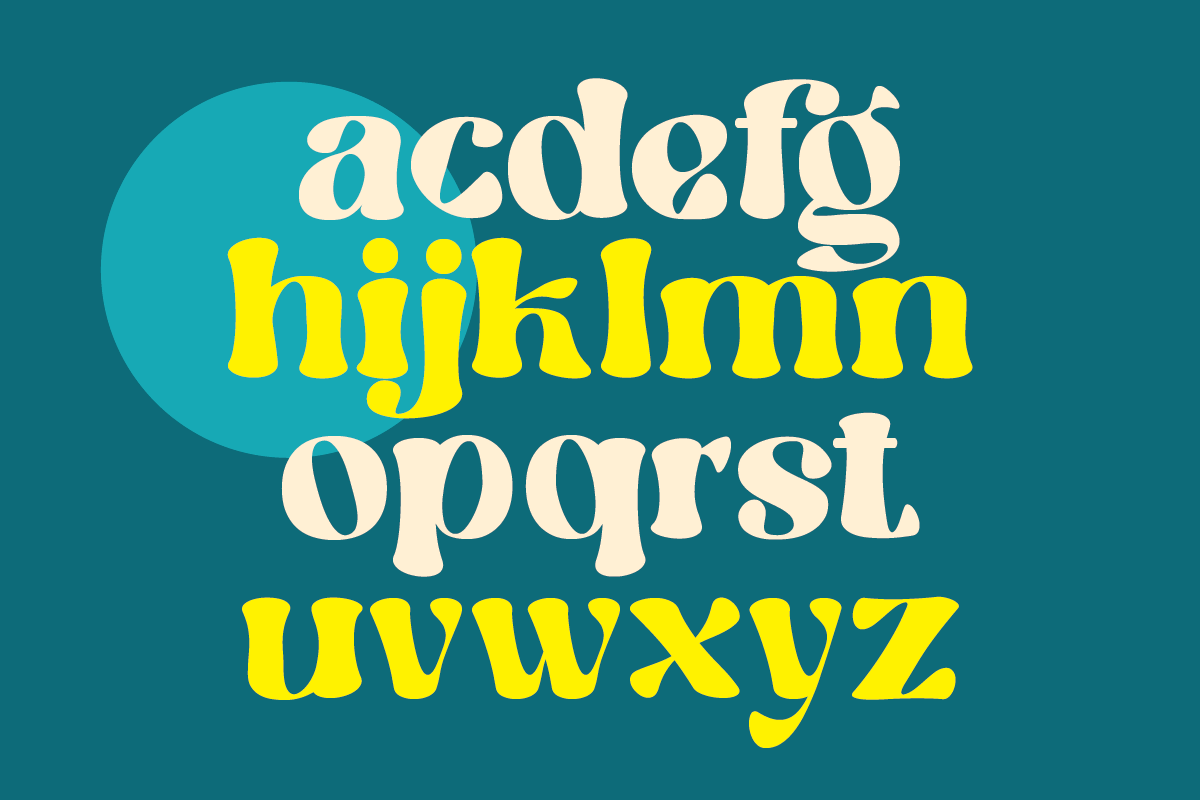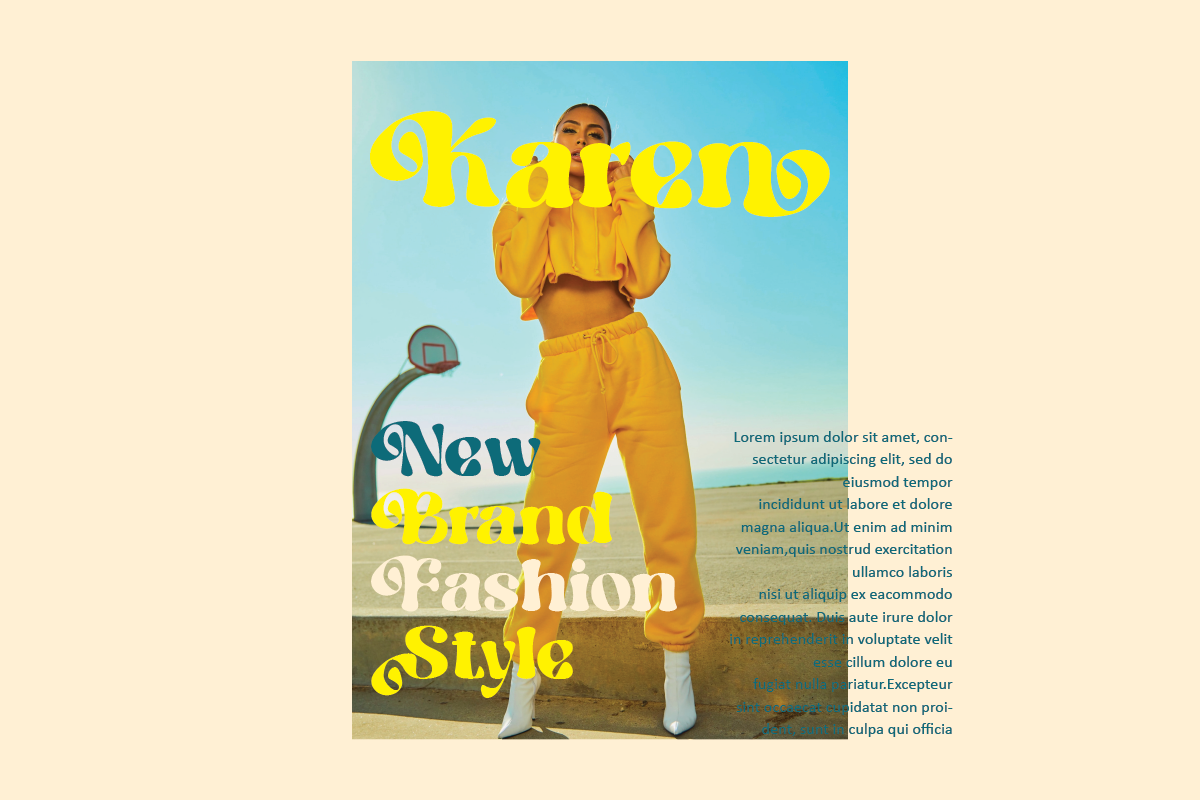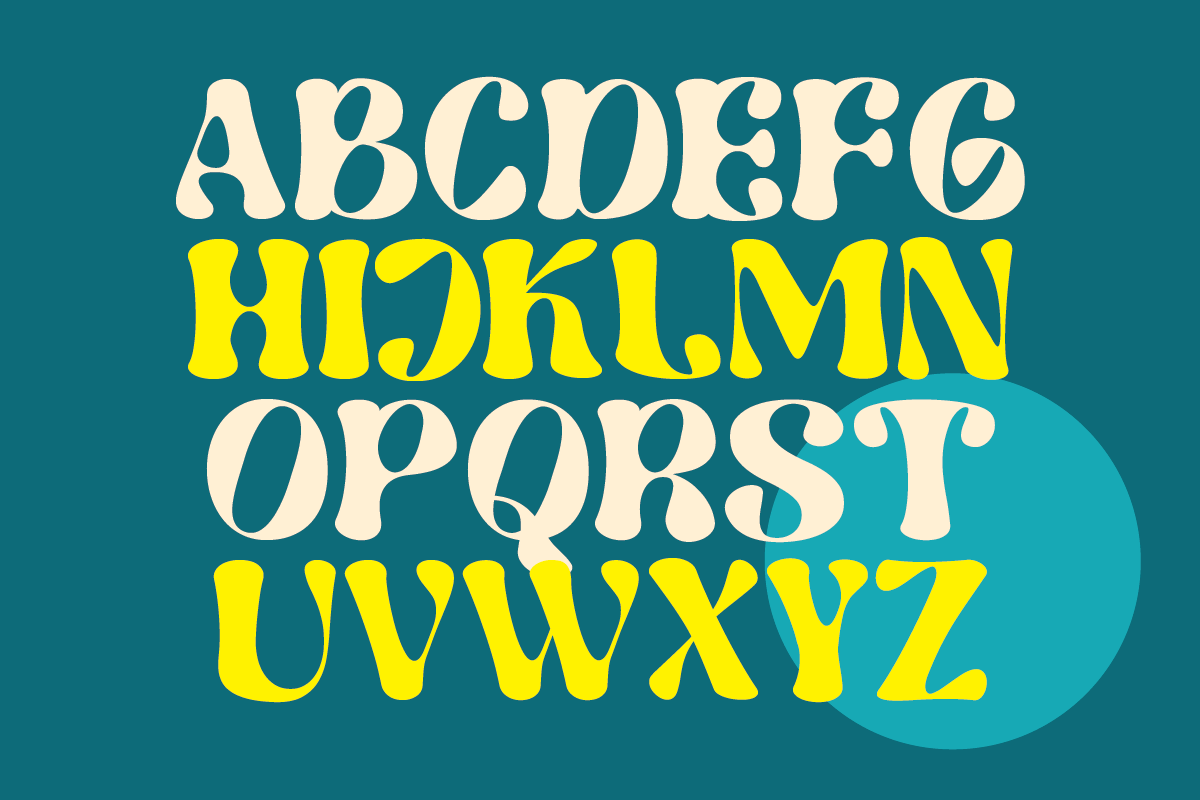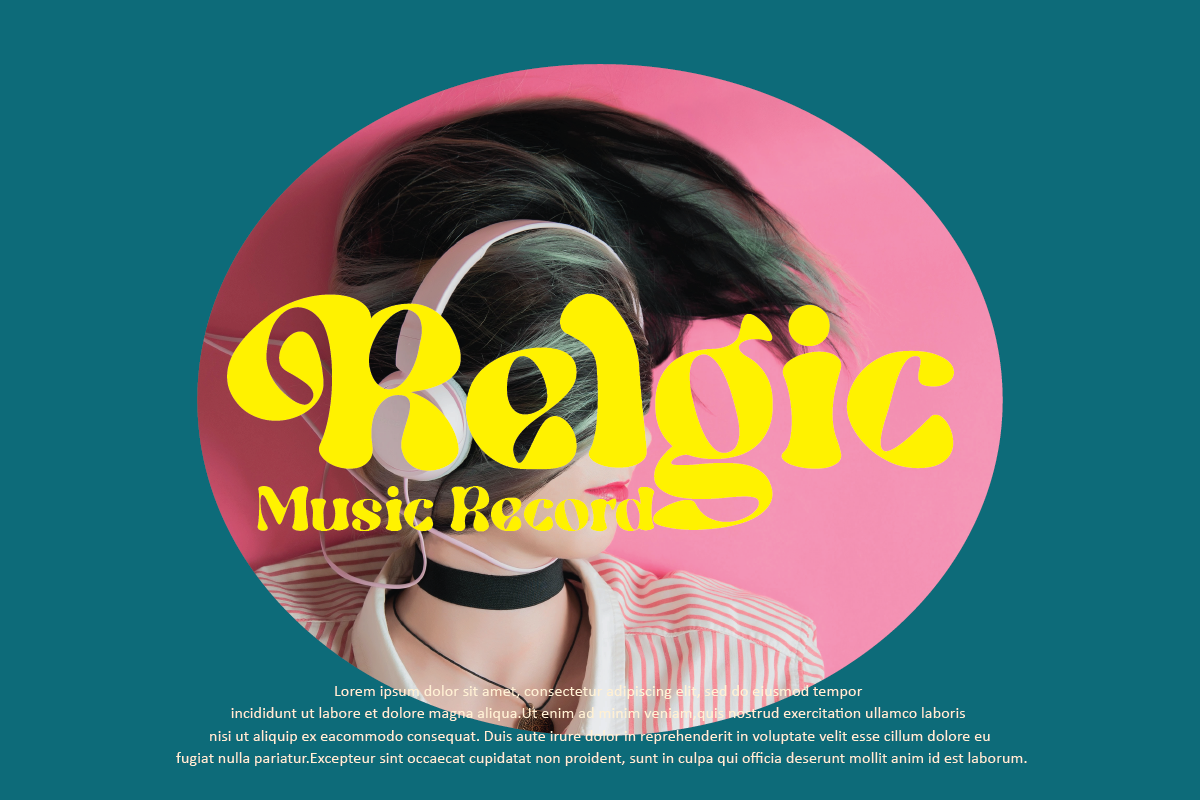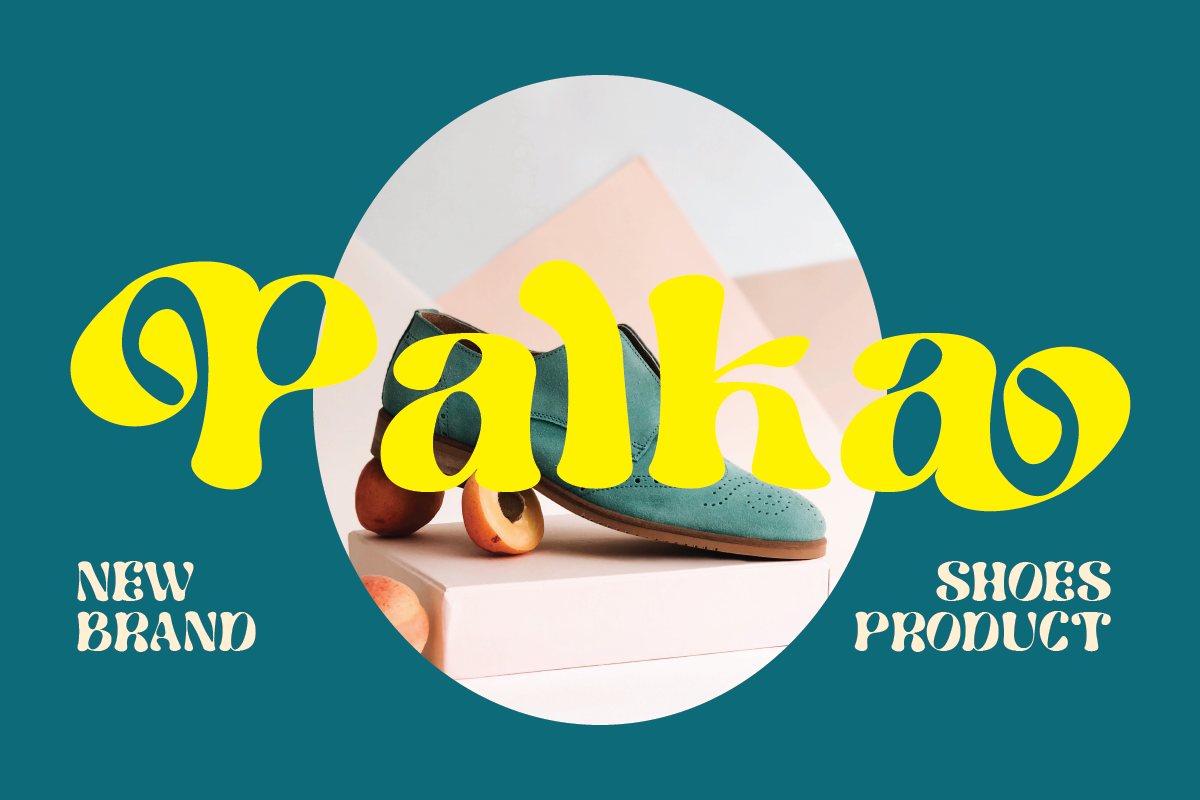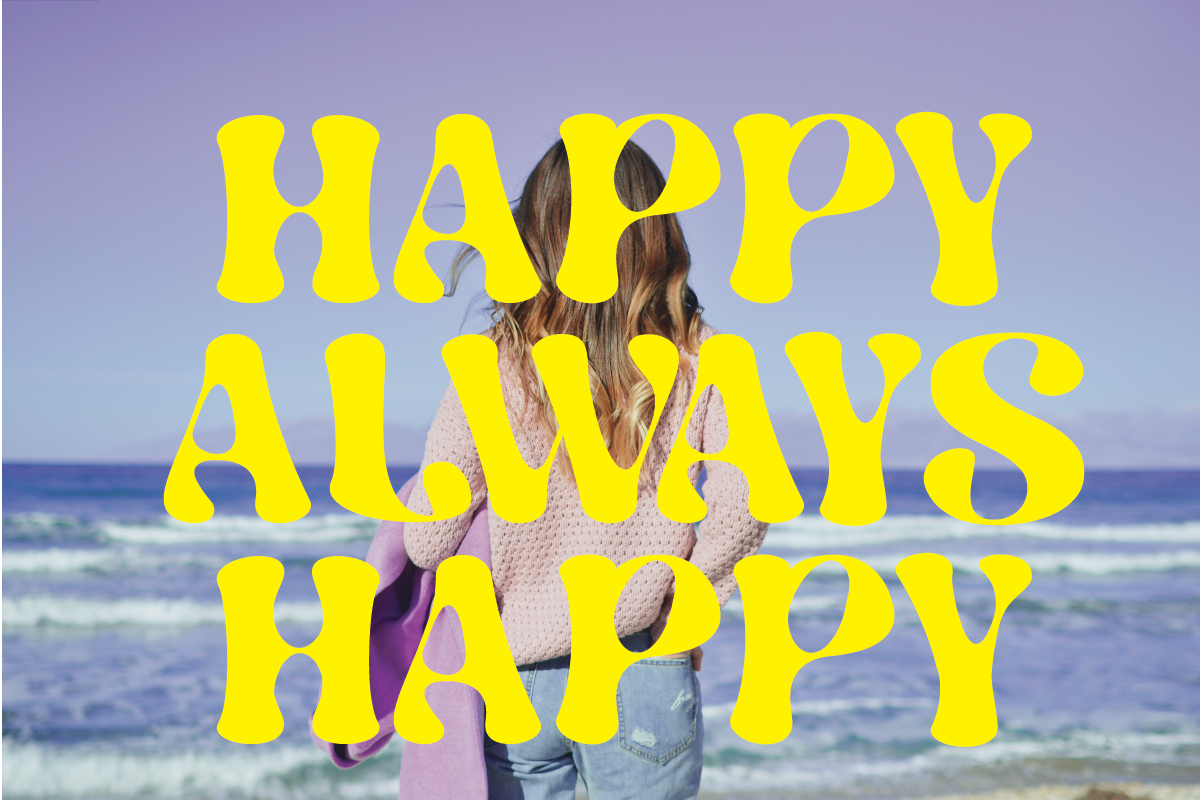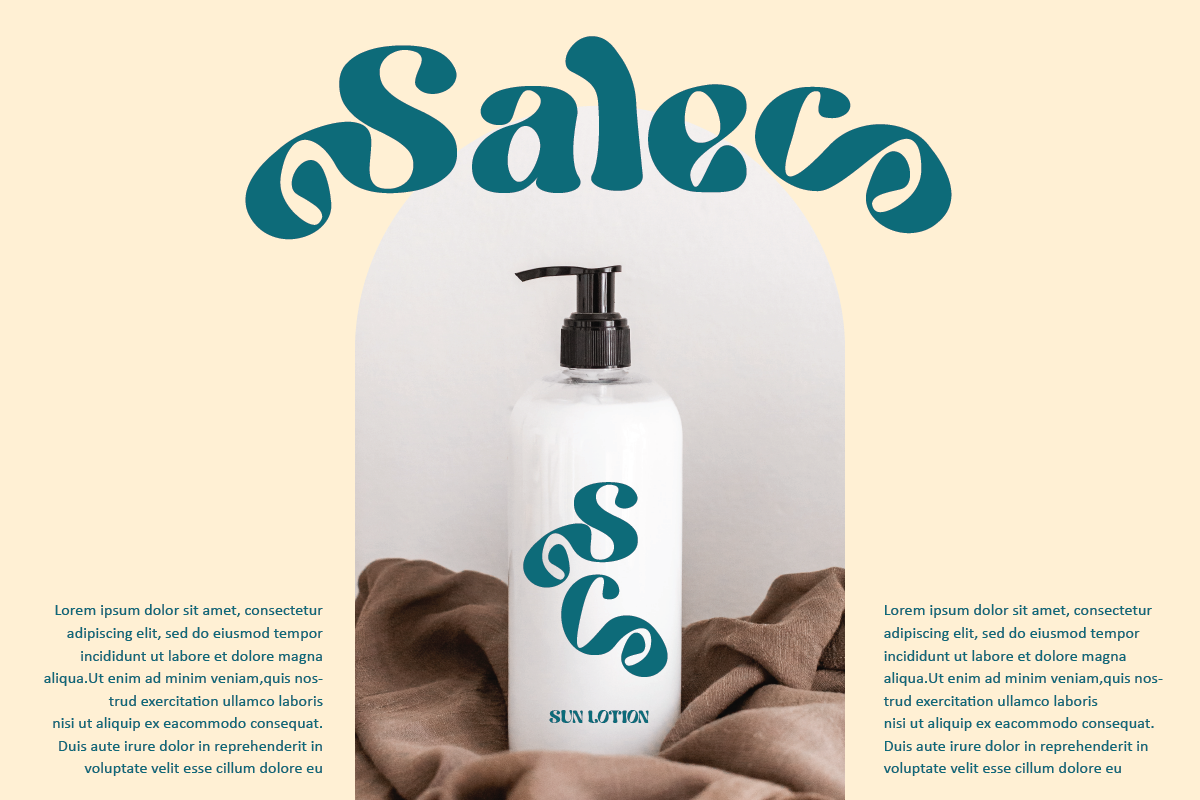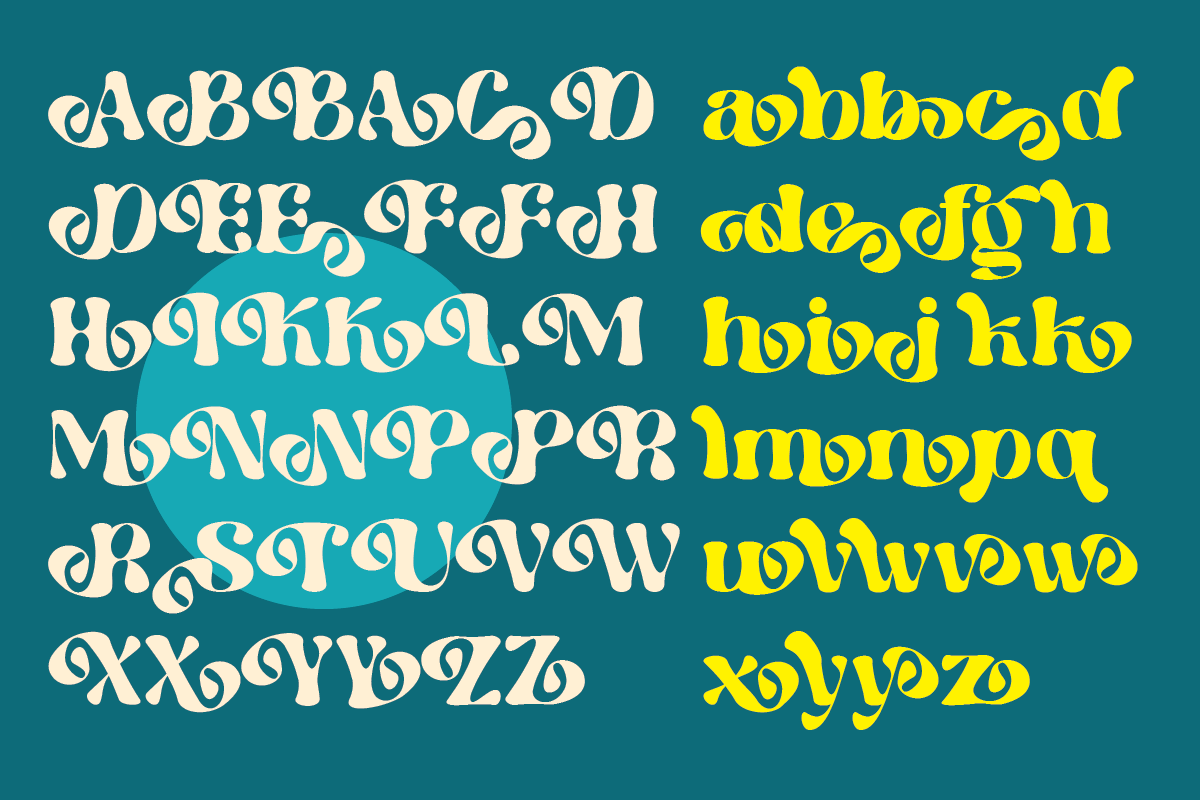
Disley
Disley Grooy Display Font, special glyphs, ornament and multilingual support. It's a very versatile font that works great in large and small sizes. Perfect for editorial projects, Logo design, Clothing Branding, product packaging, magazine headers, or simply as a stylish text overlay to any background image.